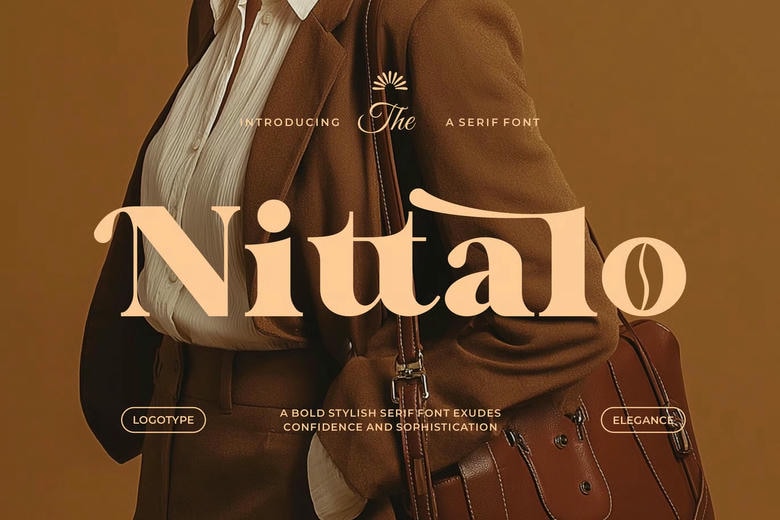
Nittalo Font
Nittalo Modern Classy Serif Font to be used on all branding and logo designs. It is a beautiful serif modern and classy font. The font can be used in designing invitation cards, cool logos, movie titles, movie names, business cards, book titles, brand names, and other designs.
Nittalo serif is an elegant serif typeface that is cool and instant. The font is an ideal choice of any project because of its elegant ligatures.
Nittalo Serif Font